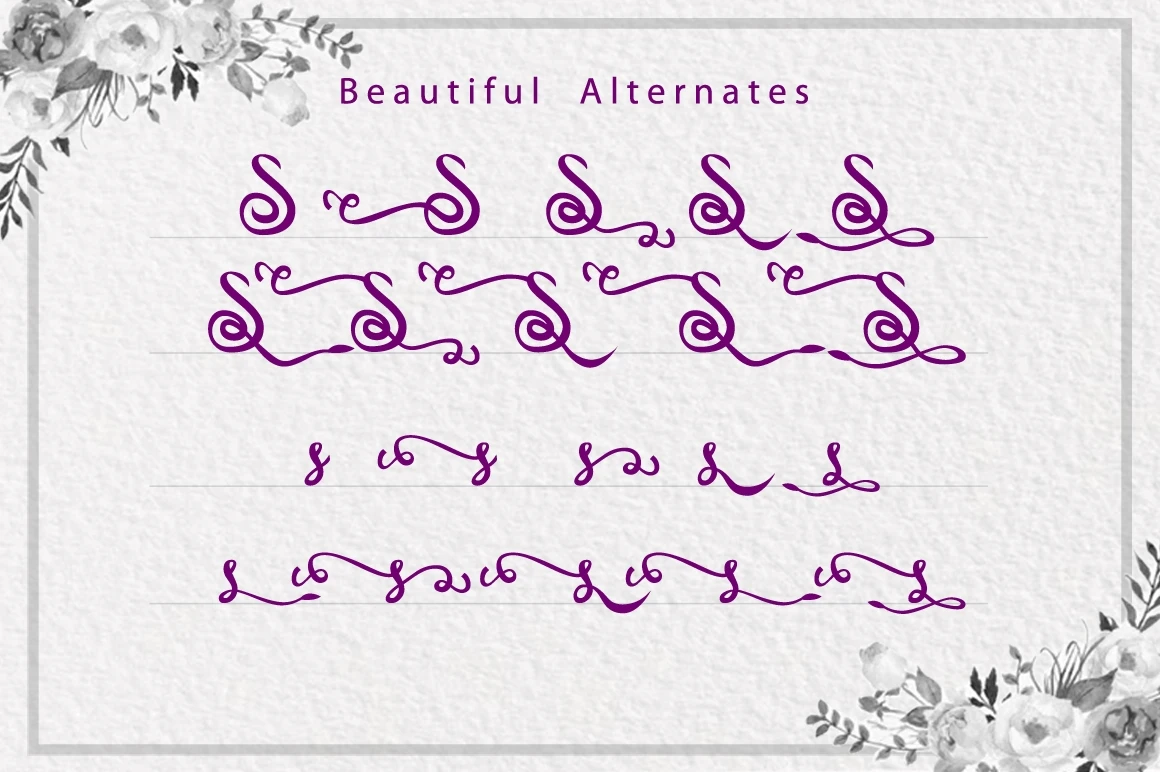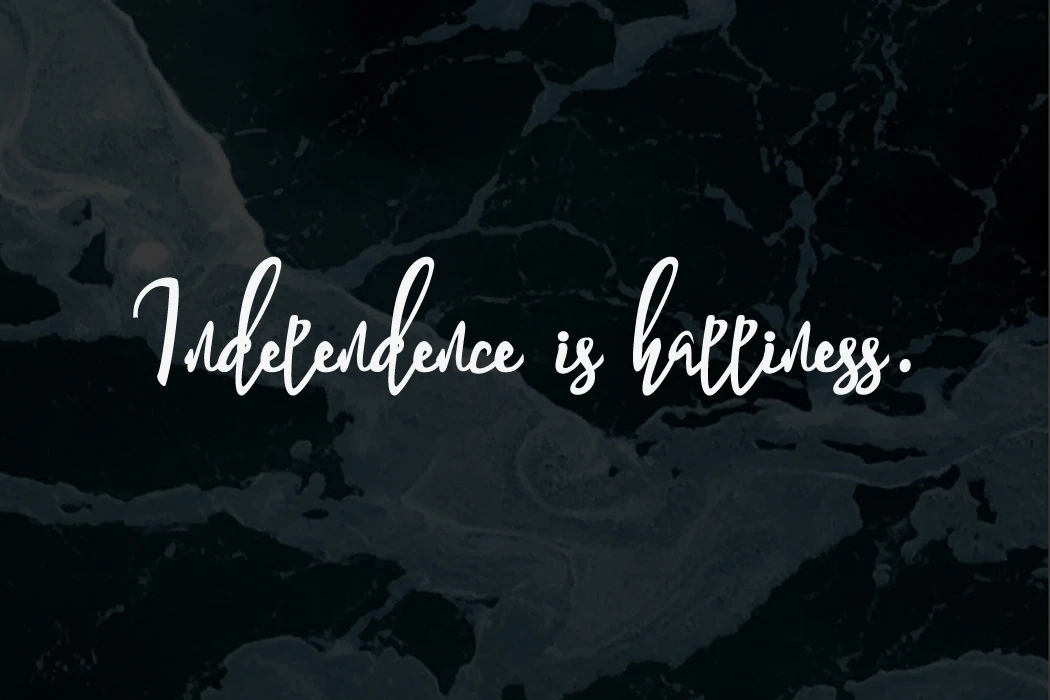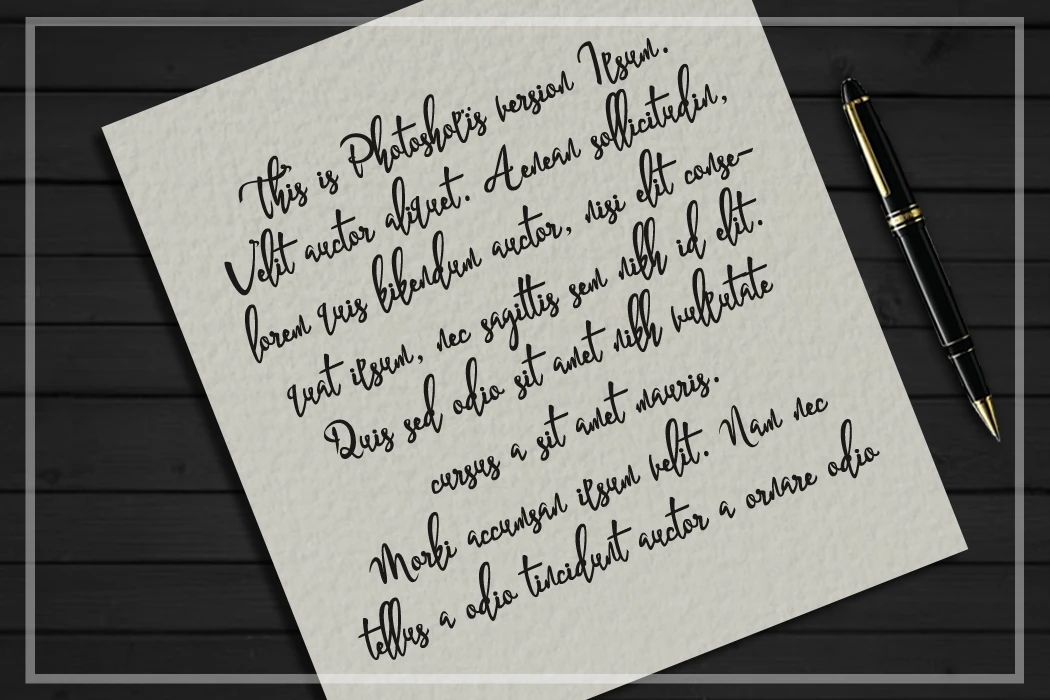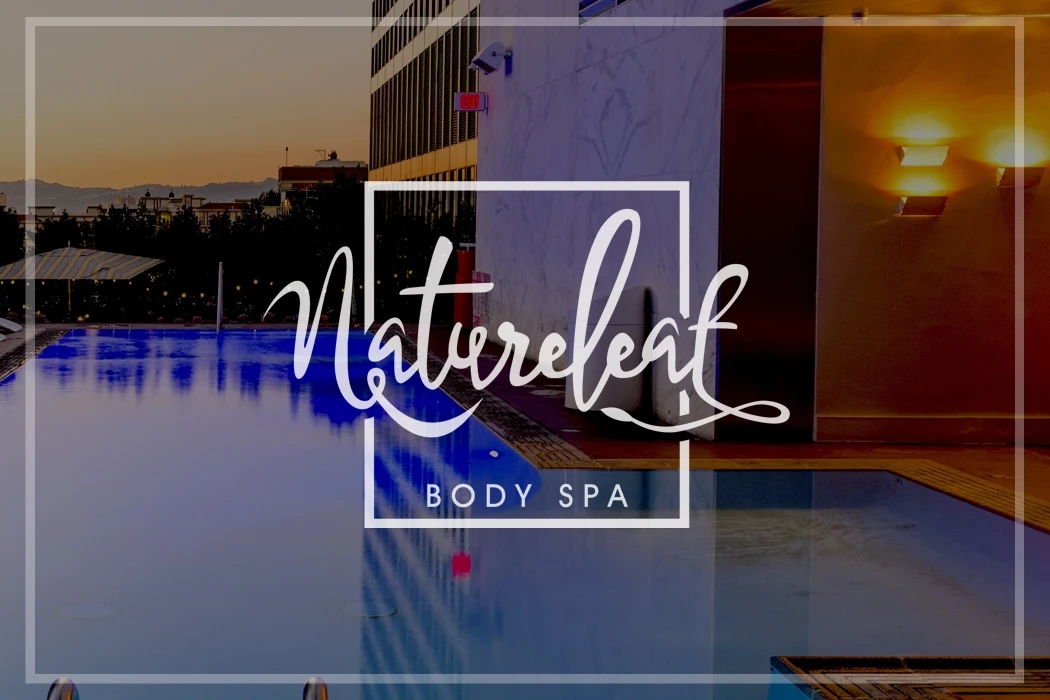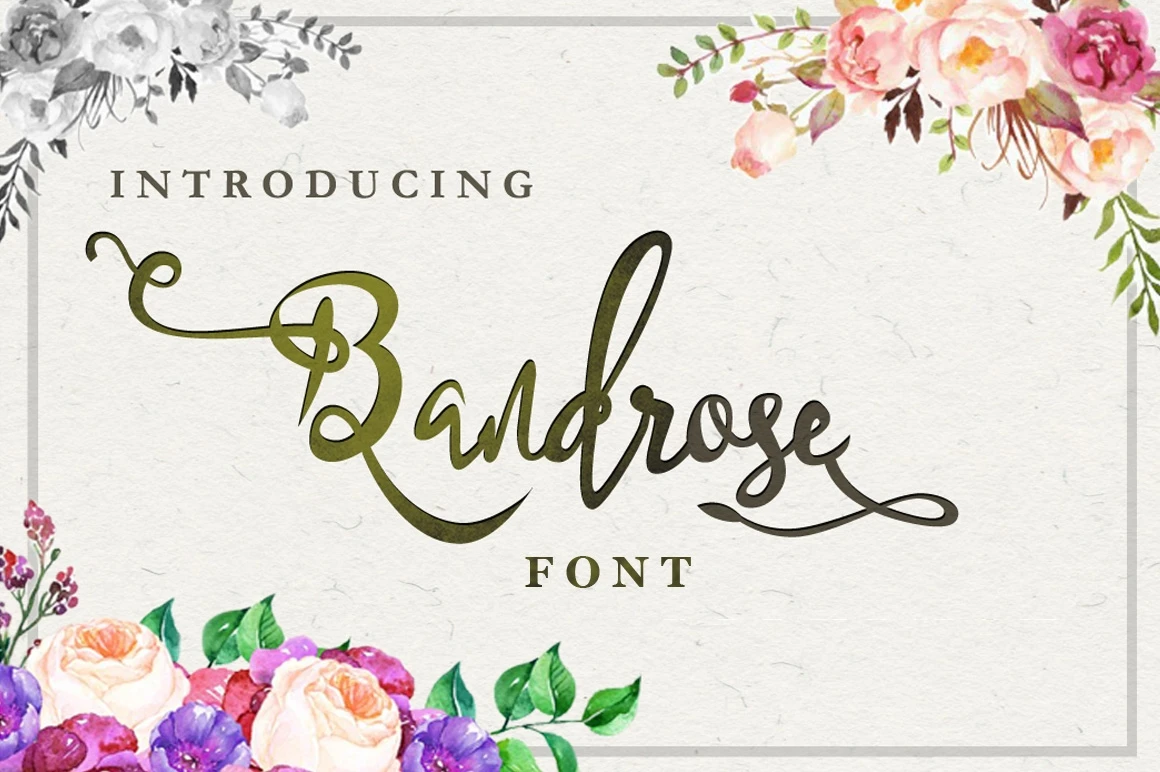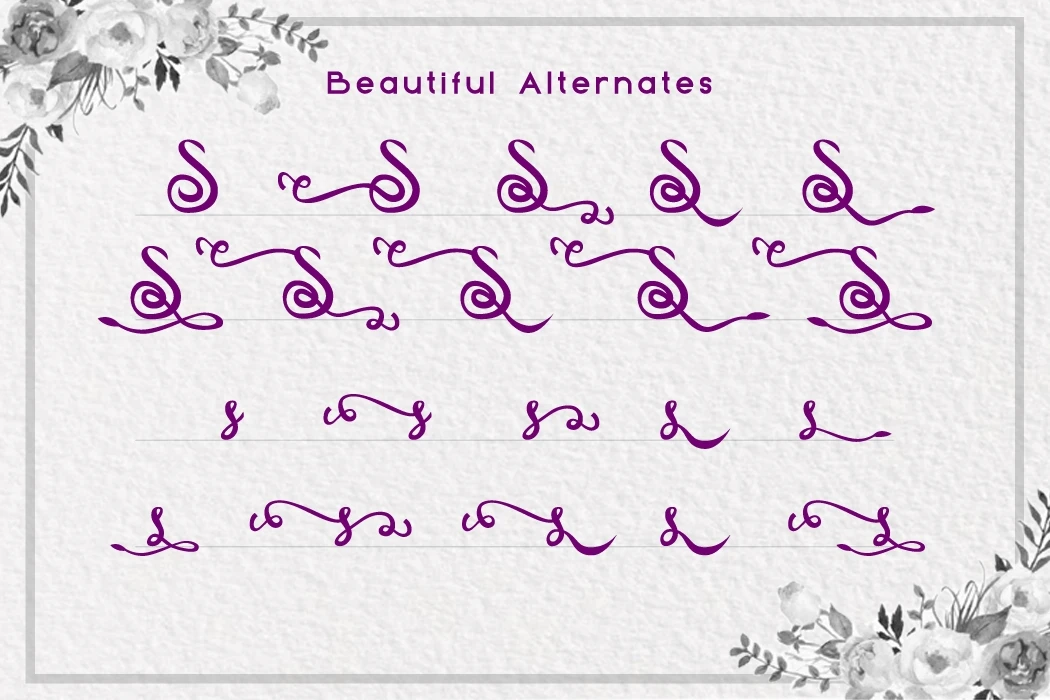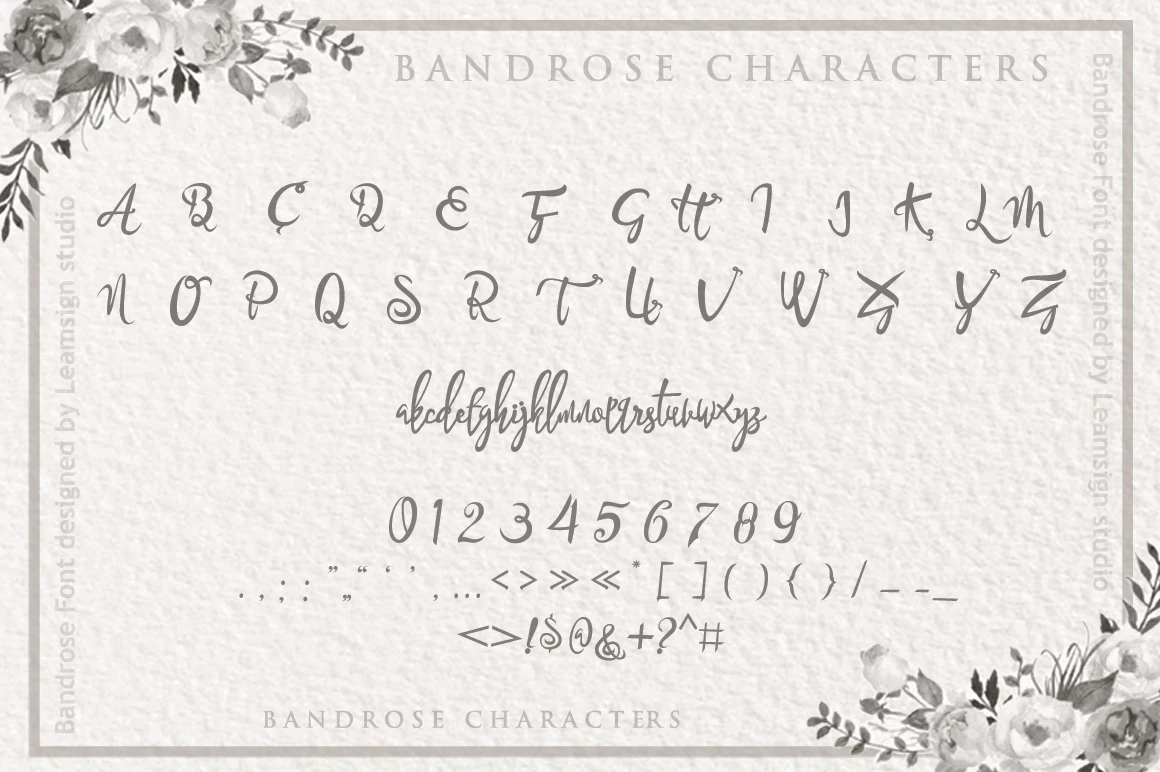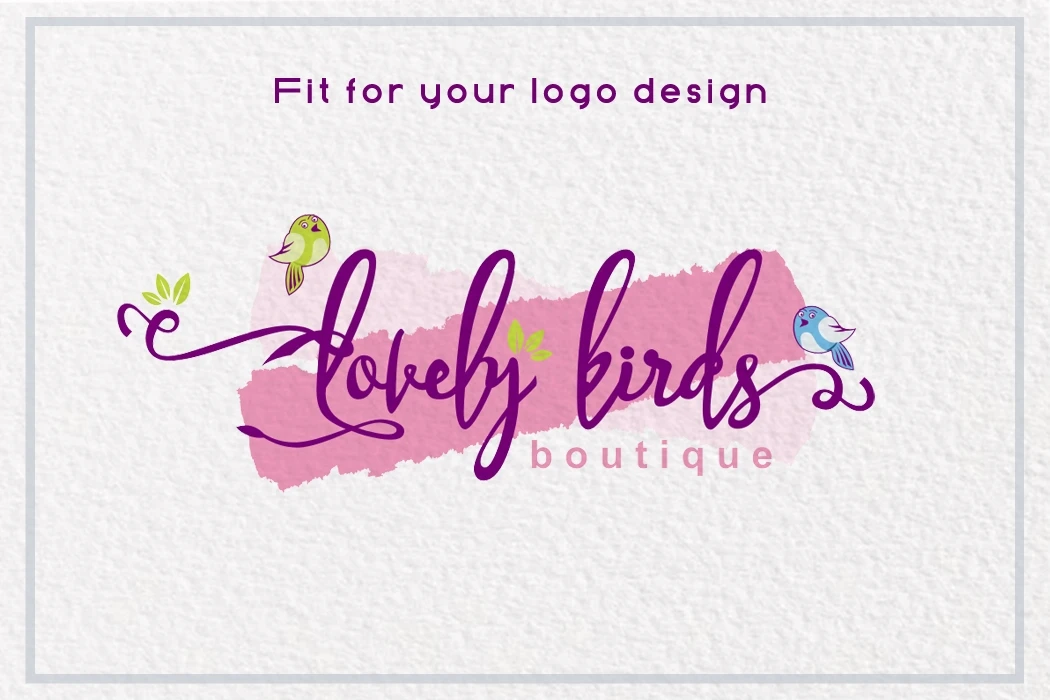
Bandrose is a beautiful typeface that is provided for anyone who wants a beautiful and warm font design.
It was inspired by the combination of handwriting and carving.
Enriched with 9 beautiful alternates for each lowercase, uppercase and accents and with 1194 ghlyps in total, allow you to work without limits.Highly legible font well suited for any display or text use.
Bandrose font perfect for branding, wedding invites, product packaging, logos, quotes, headers, cards and more!.
Features :
- 1194 Glyphs
- Uppercase A-Z
- Lowercase a-z
- Numbers 0-9
- Accents
- Punctuation
- Alternates (9 alternate characters for each Uppercase, lowercase and accents)
- Multilingual support